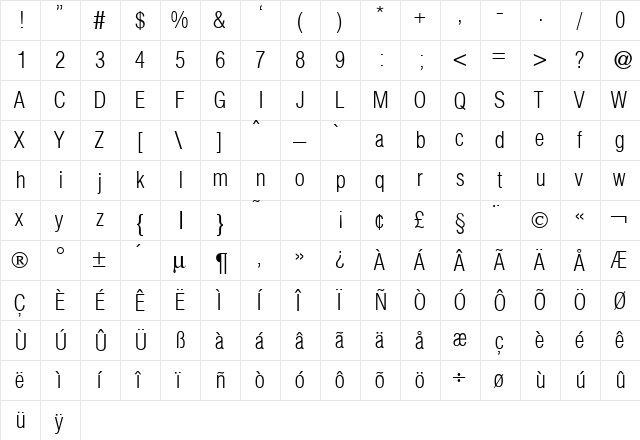
HelbaConXLigDB Normal Font Preview
HelbaConXLigDB Normal
Design Context for HelbaConXLigDB Typeface
HelbaConXLigDB offers clean, dependable letterforms without strong stylistic allegiance, making it a practical choice for designers who need flexibility.